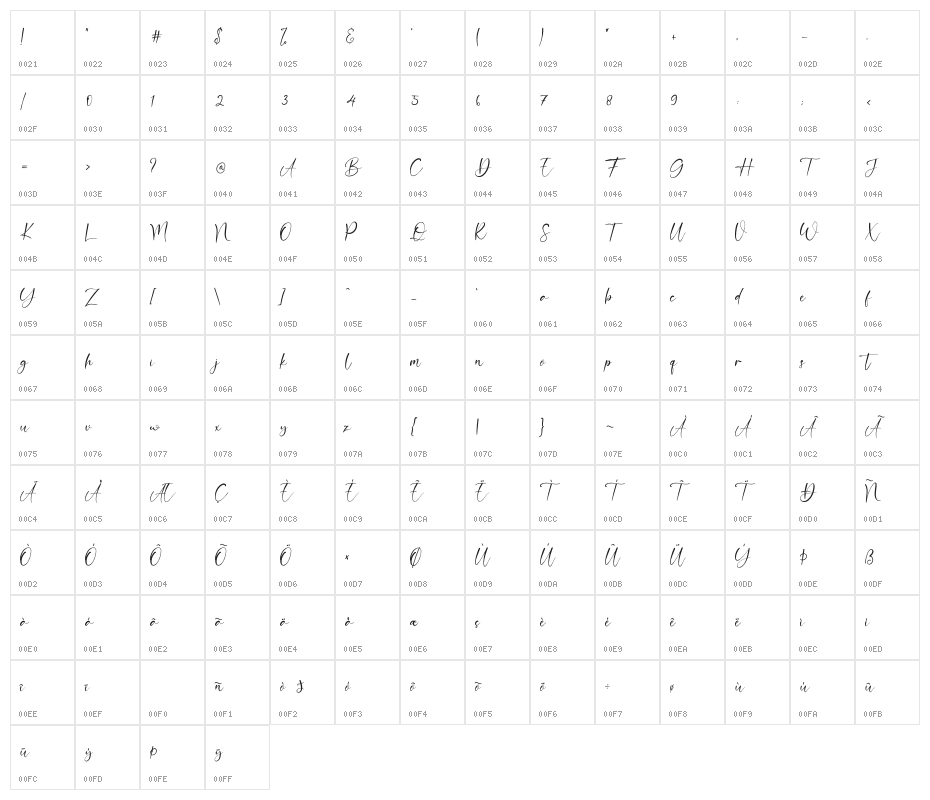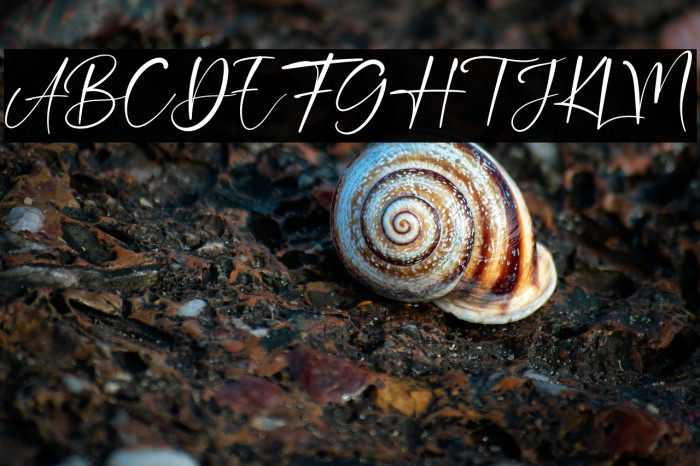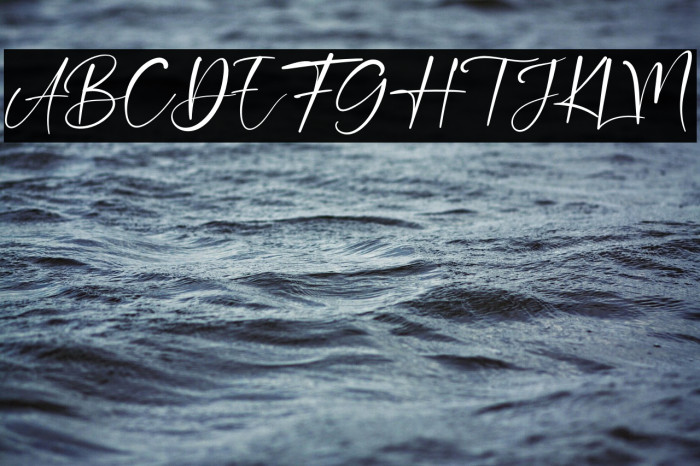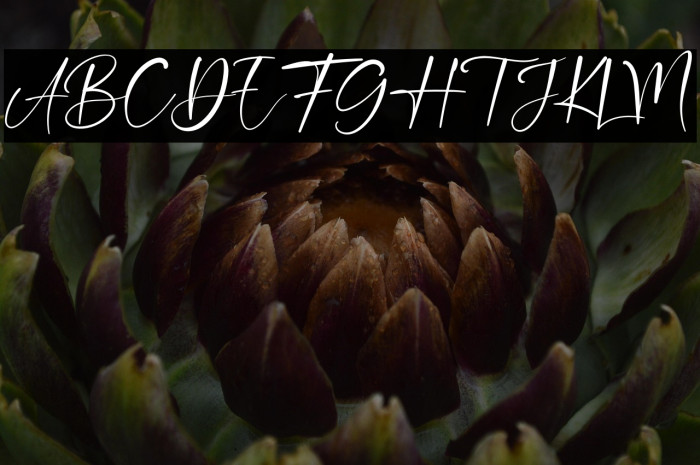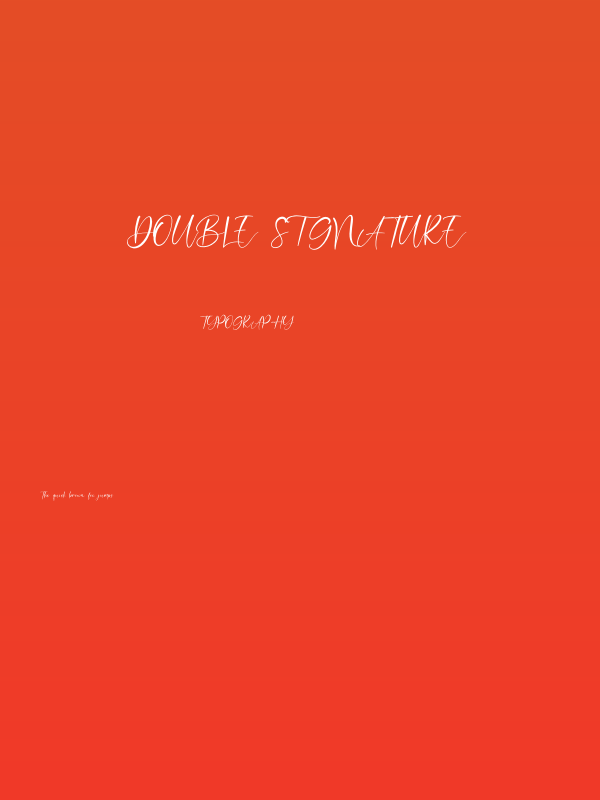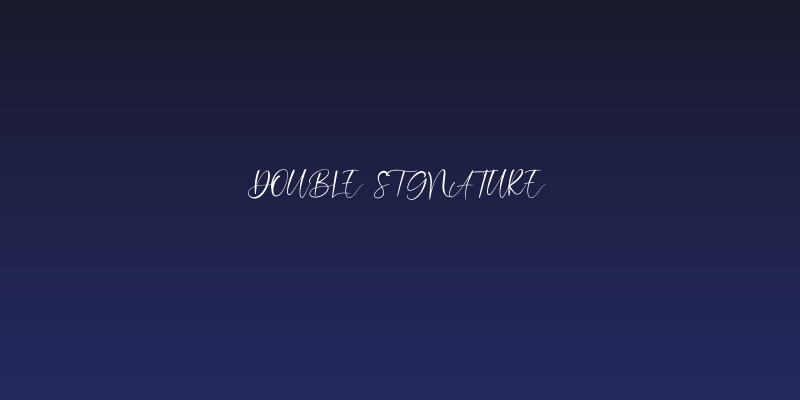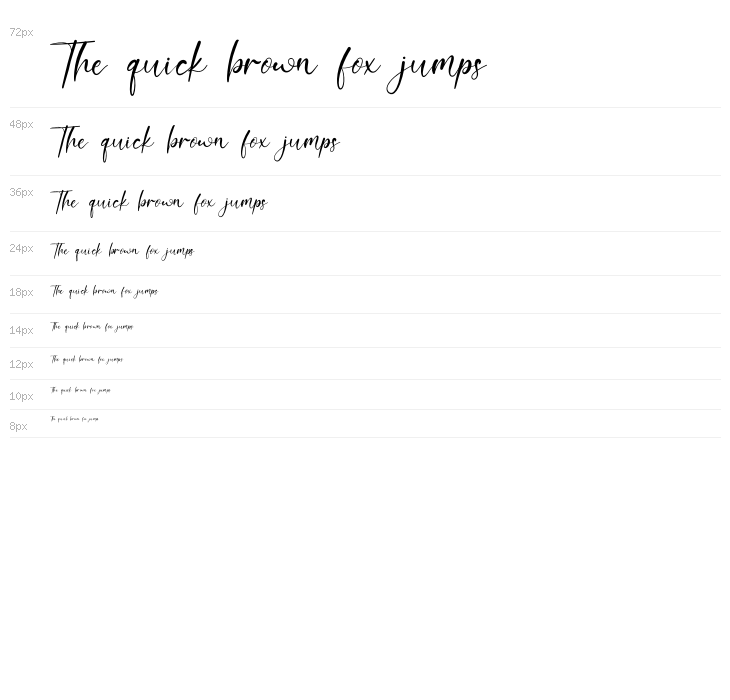
Double Signature Font
Double Signature Description
This elegant script font features a flowing, cursive style that mimics the fluidity of a handwritten signature. The uppercase letters are characterized by their sweeping, elongated strokes and graceful curves, creating a sense of sophistication and flair. The lowercase letters maintain a consistent style, with smooth connections and a slightly more compact form. The numerals and special characters are crafted with the same attention to detail, ensuring a cohesive look across all glyphs. This font exudes a sense of personal touch and elegance, making it ideal for projects that require a touch of class and individuality.
| Overall Style | Elegant, Handwritten |
| Use Case | Logos, Invitations, Personal Branding |
| Proposed Projects | Ideal for wedding invitations, personal branding, elegant stationery, and high-end product packaging. |